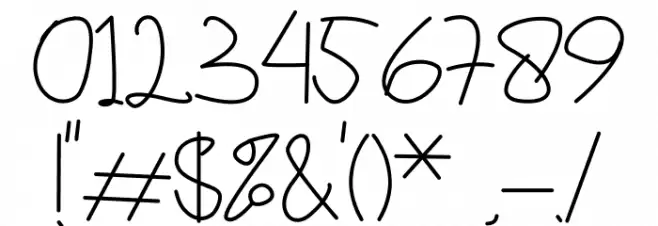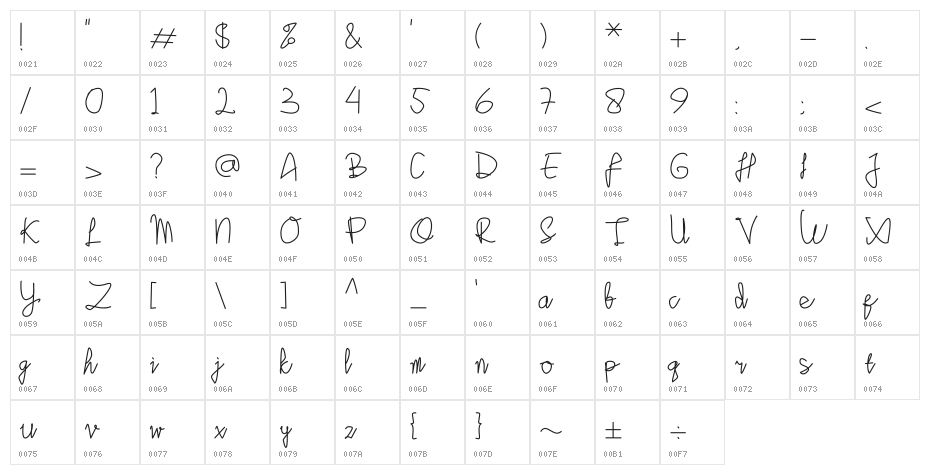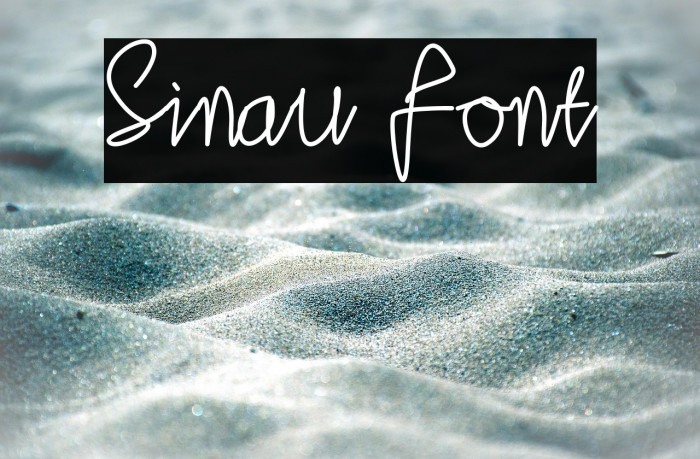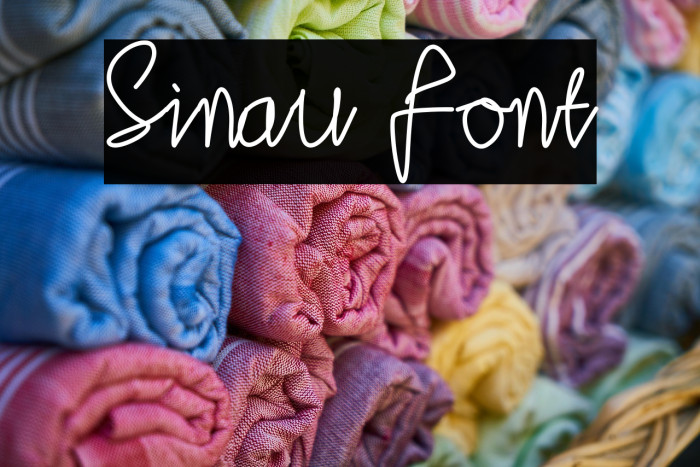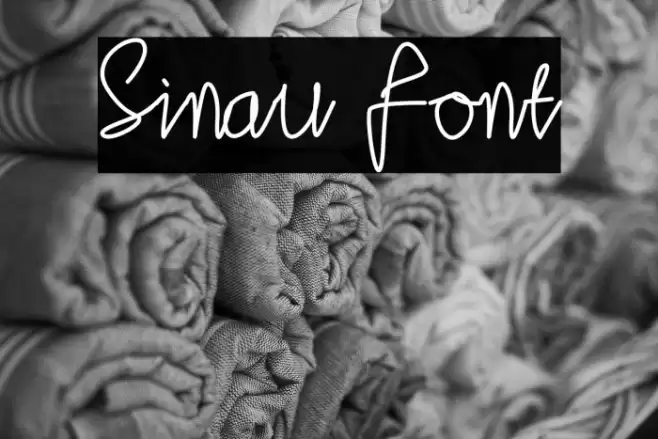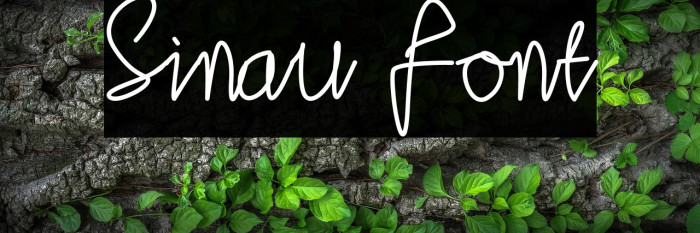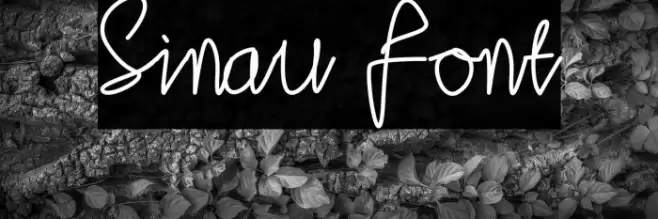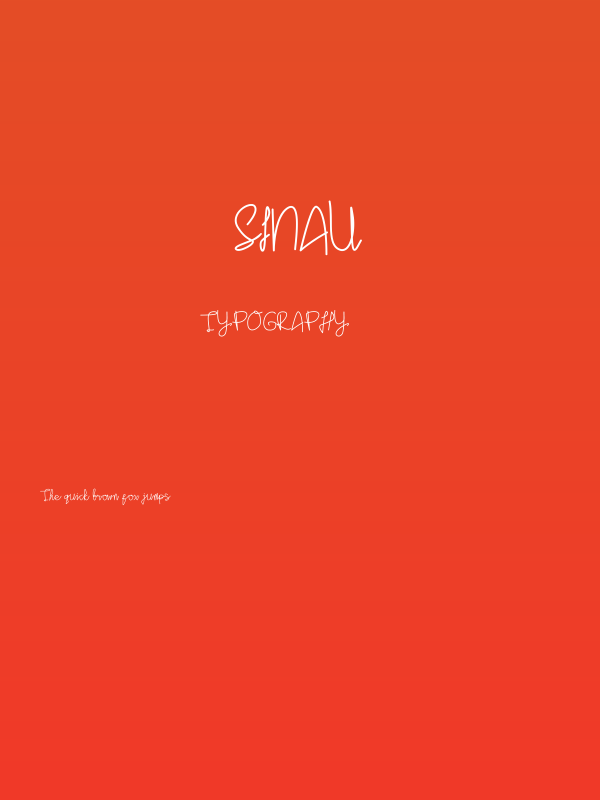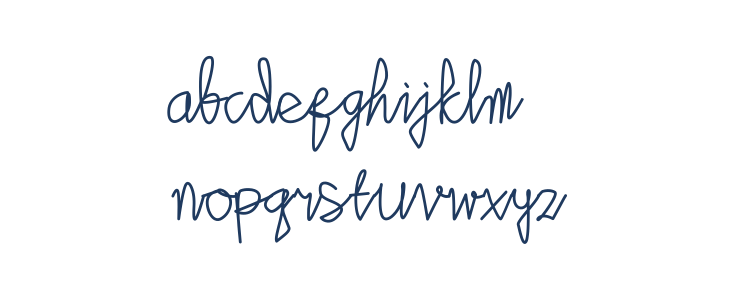
Sinau Font
Sinau Description
This font features a playful and casual handwritten style with a smooth, flowing script. The letters are connected in a natural, cursive manner, giving it an informal and friendly appearance. The strokes are consistent in thickness, providing a uniform look across all characters. The uppercase letters maintain a distinct individuality while the lowercase letters exhibit a more connected and fluid design. Numbers and special characters are crafted to match the overall aesthetic, ensuring a cohesive look throughout. This font is ideal for projects that require a personal touch or a relaxed vibe.
| Use Case | Logos, Invitations, Social Media Graphics |
| Proposed Projects | Greeting cards, invitations, personal branding, social media graphics, and casual event posters. |